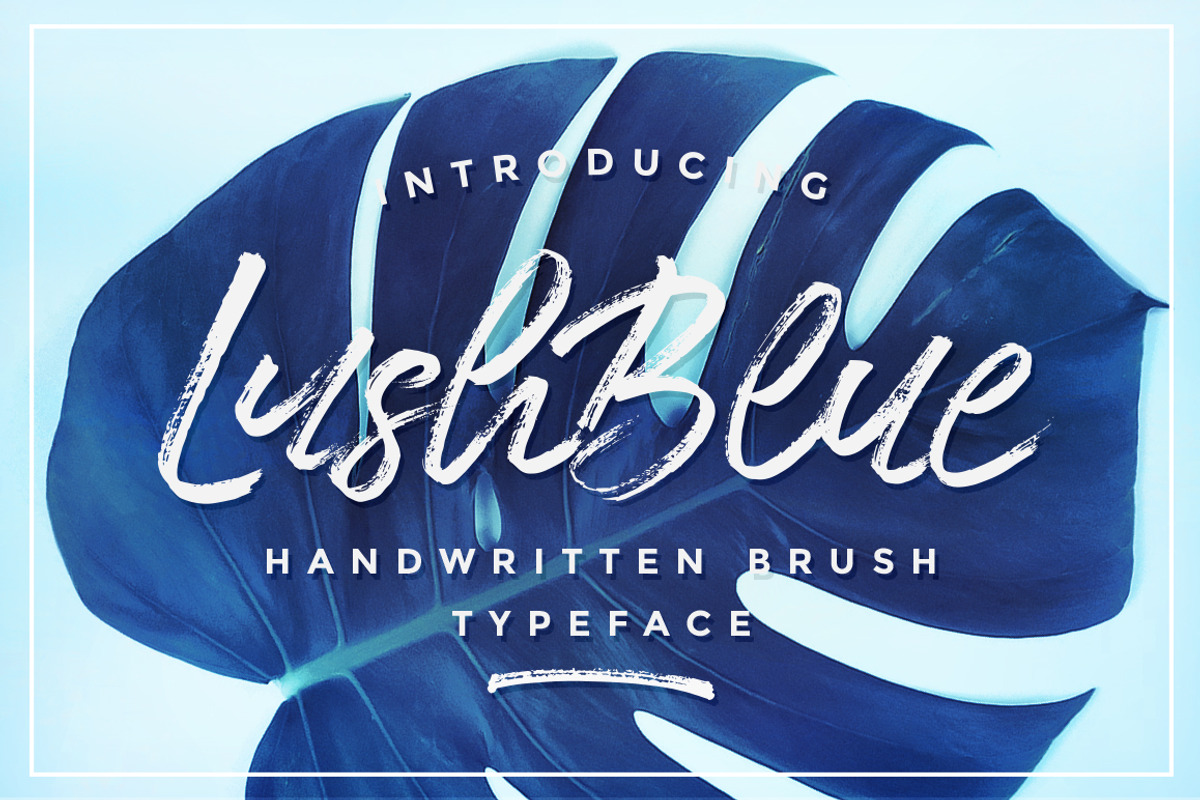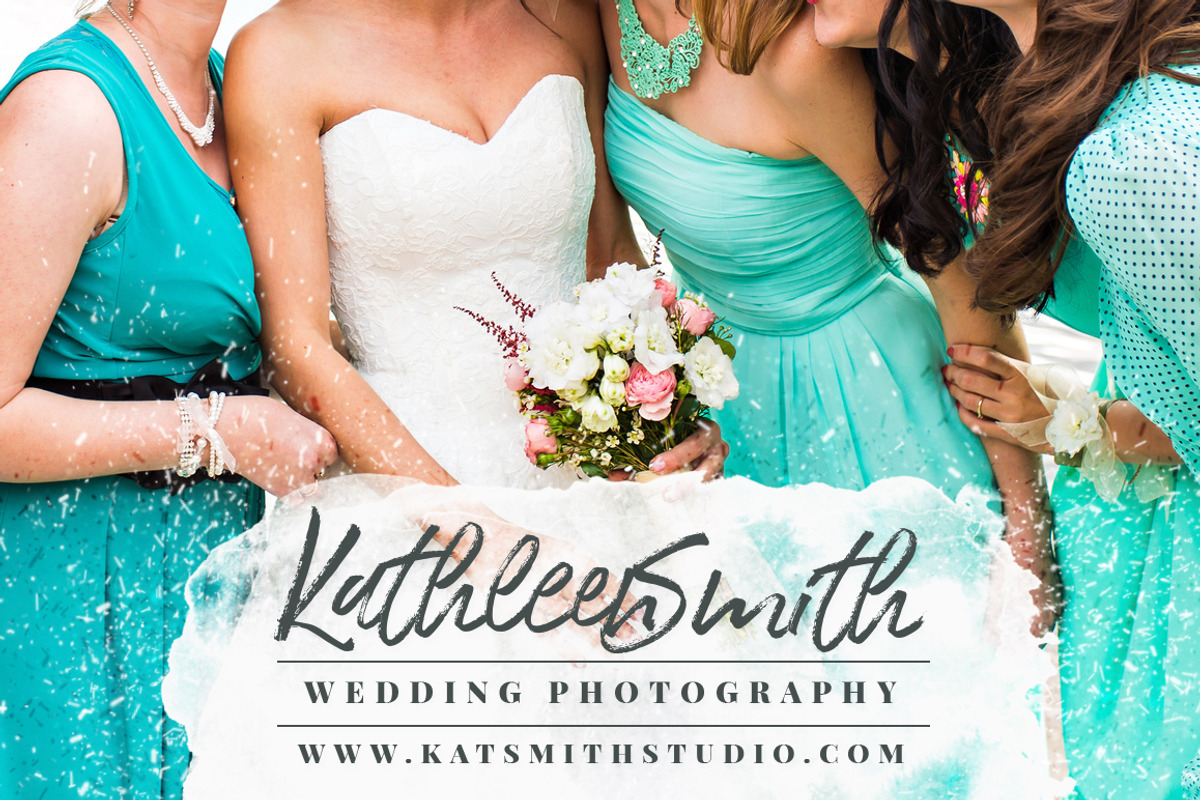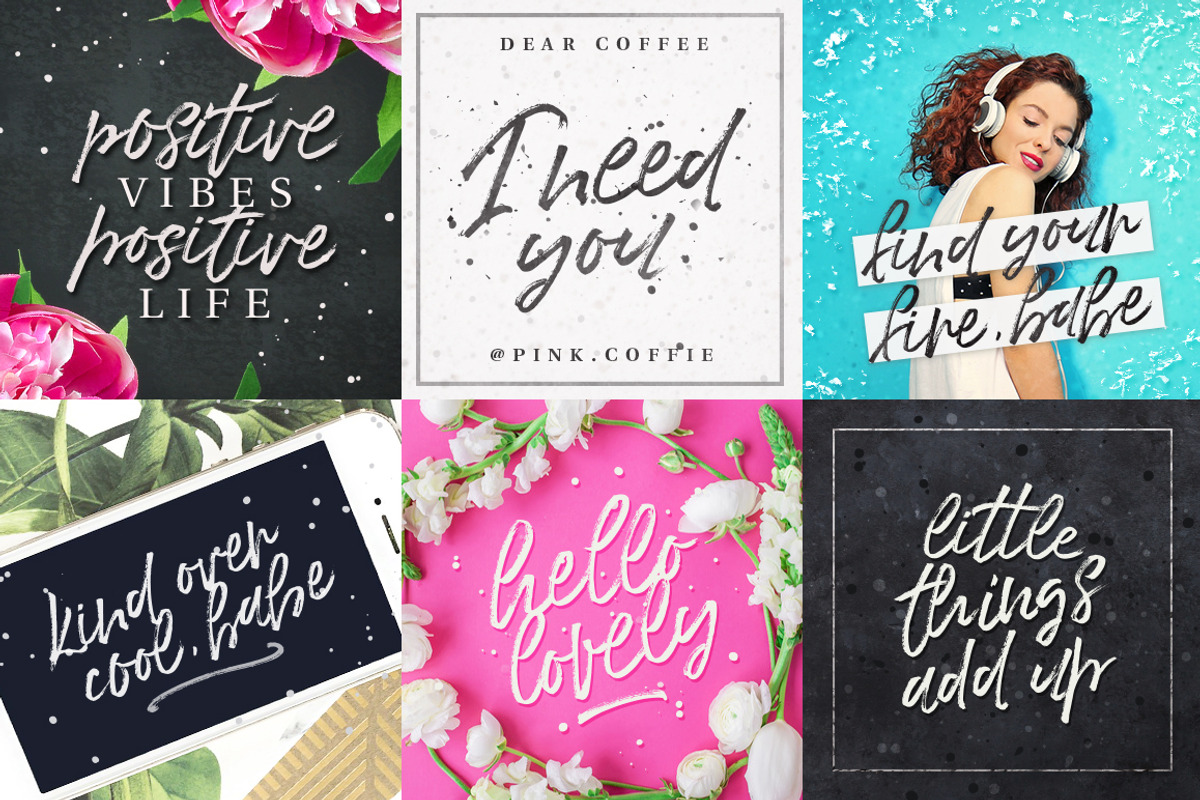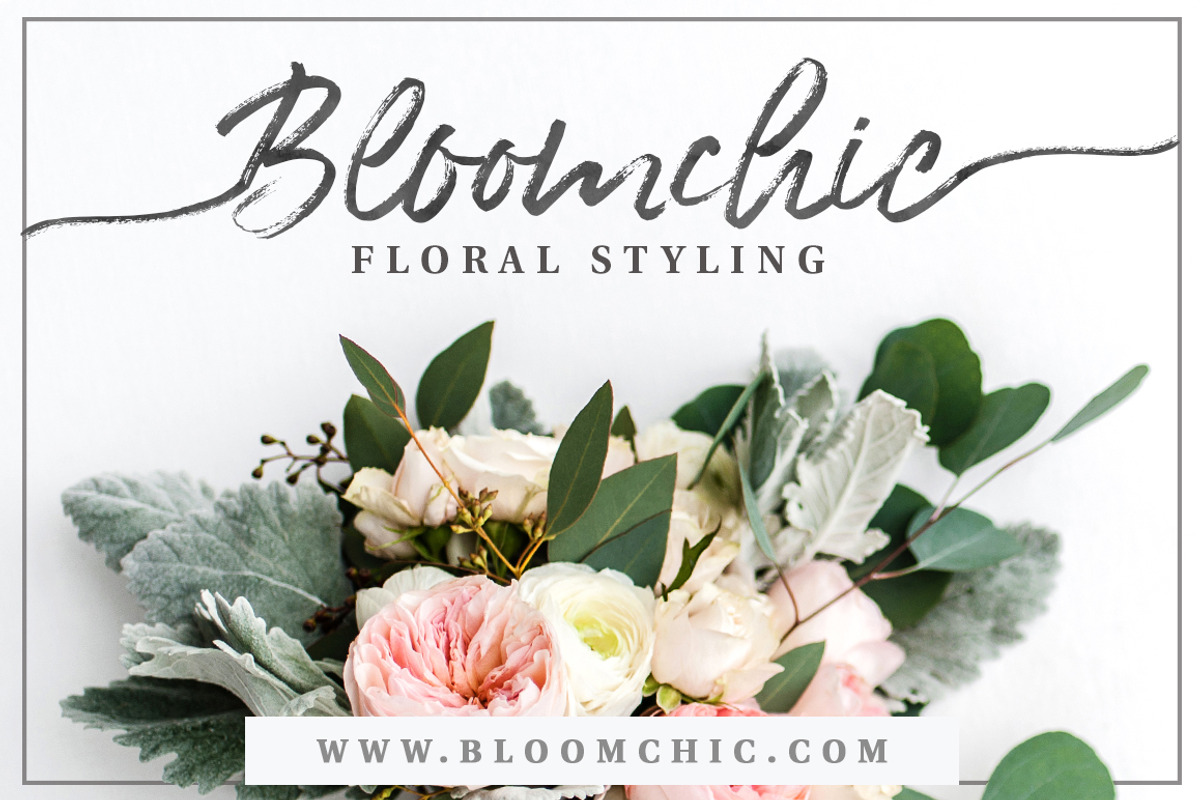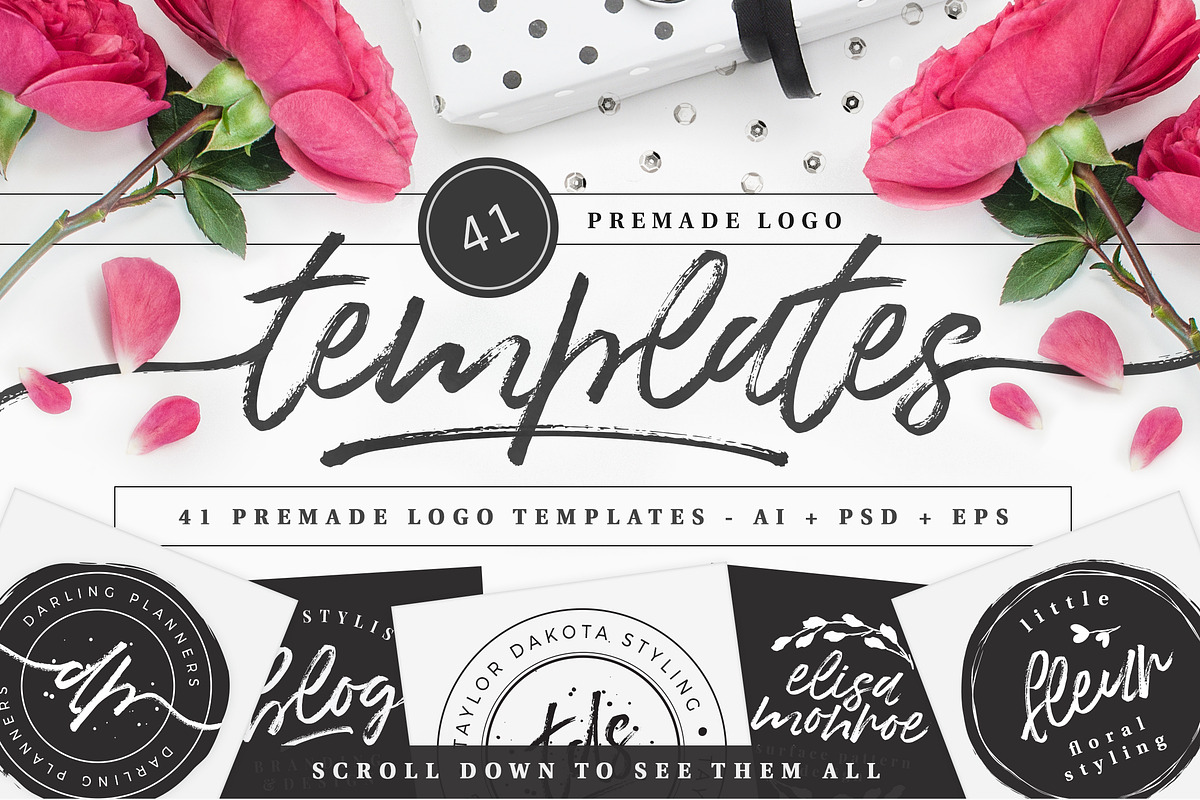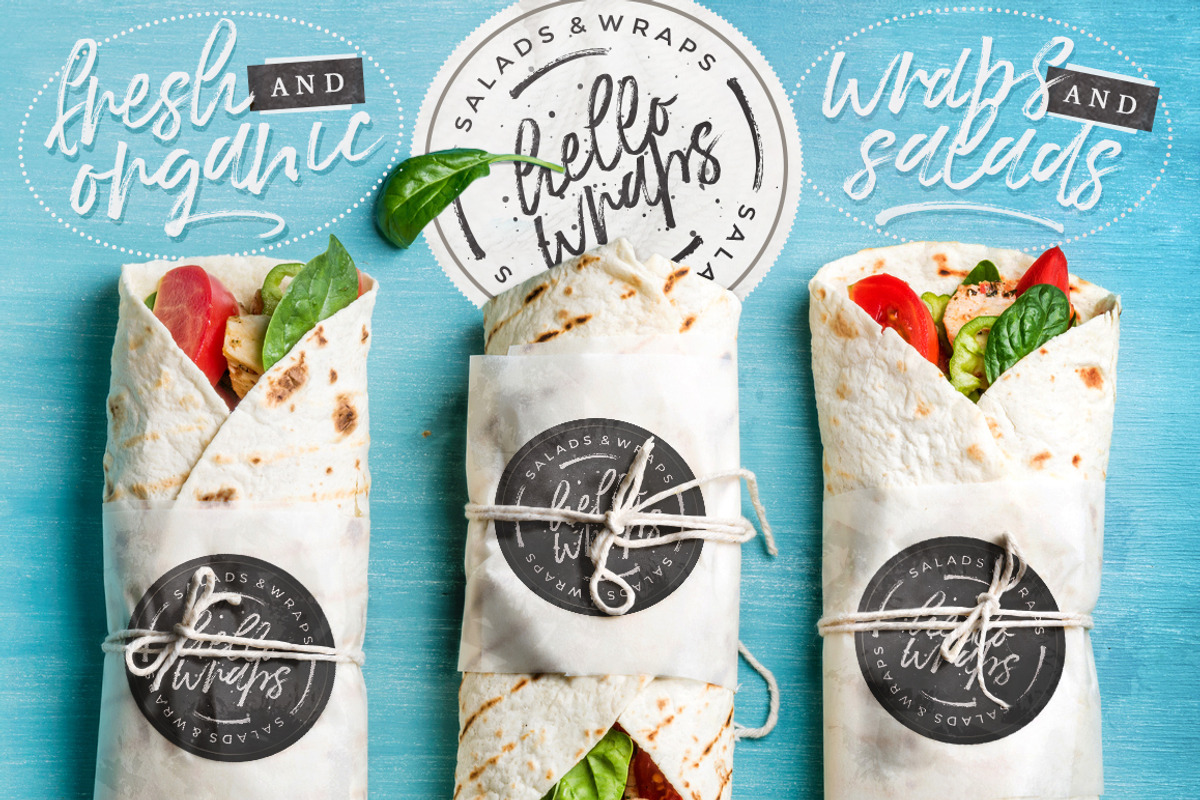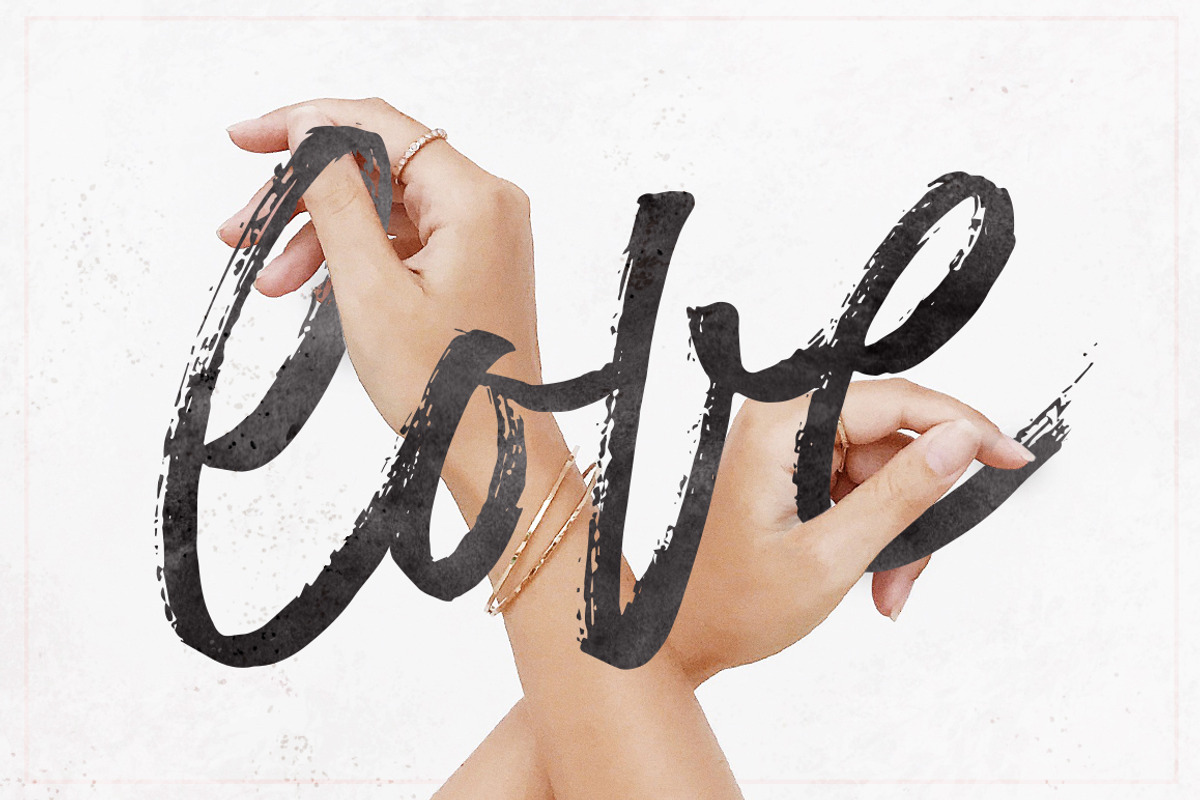
LushBlue LOGO KIT + Font & Swashes!
💕 Say Hello to LushBlue LOGO KIT!💕
LushBlue is a casual, textured brush typeface with plenty of character, breeziness and an awesome happy attitude& now includes additional 41 premade logo templates to make your lovely projects super easy & fun!
This little gem has two alternate stylistic sets ( set as stylistic alternates and contextual alternates to make access easier in Photoshop ) and a whole set of ligatures to give you that natural & authentic hand lettered look! Create tons of gorgeous logos, headers, blog and social media graphics, prints and invitations with super ease and lots of fun! :) Wanna see it in action? Type in the font preview box below to test drive this little beauty or check the previews for the full character map & some little inspo! ;)
Also, I included a set of textured bonus swashes to mix and match with the font. A must nowadays, right? :) You can either use it as a bottom/end swash or resize and adjust to fit the letter tails/sides. Depends of your project and desires. :)